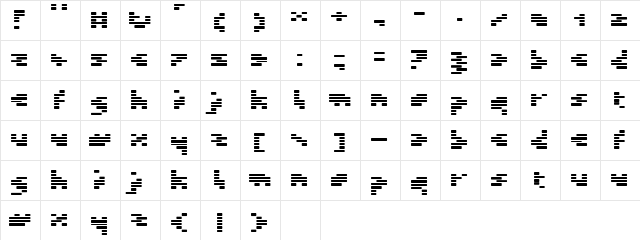
TV27 Regular
Design Context for TV27 Typeface
TV27 is a composed and adaptable typeface that performs quietly and consistently across a wide range of design contexts.